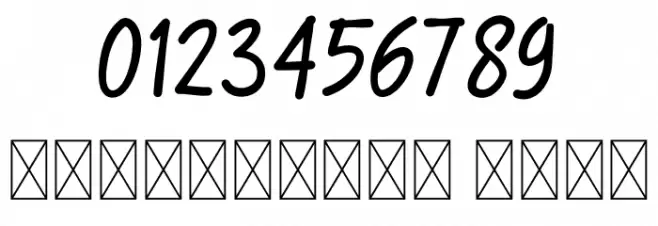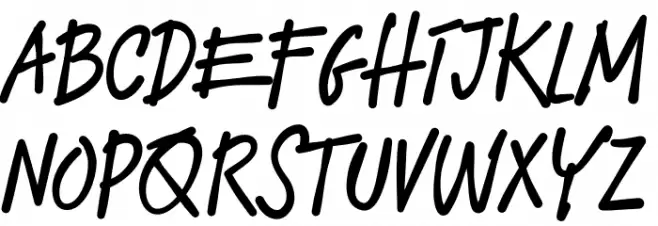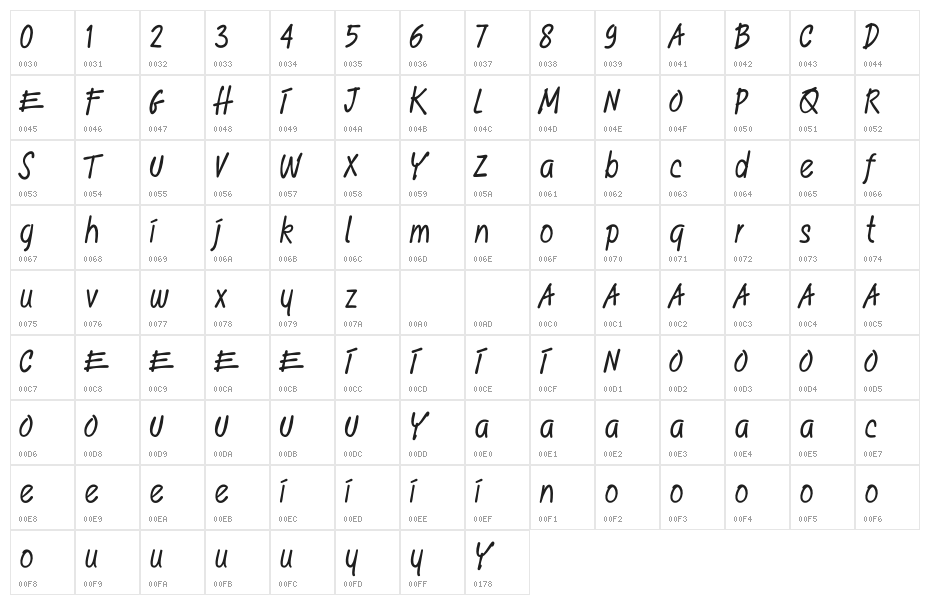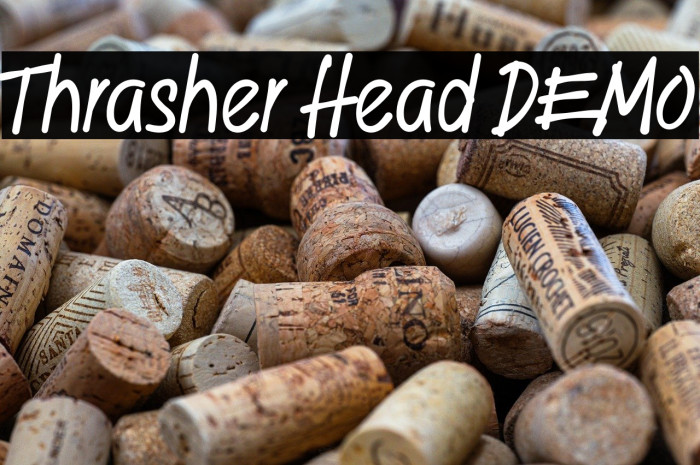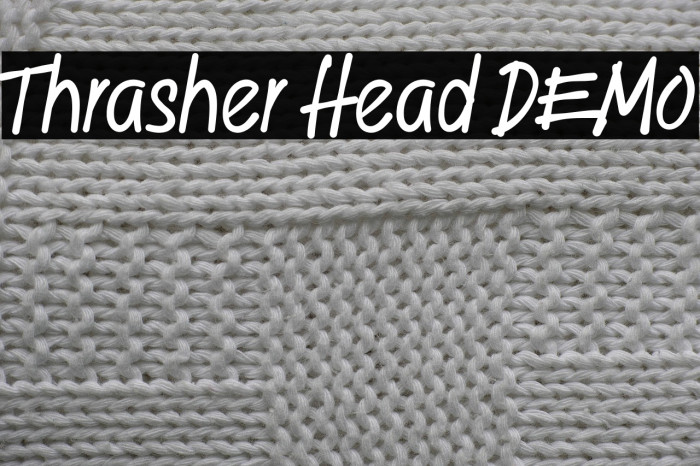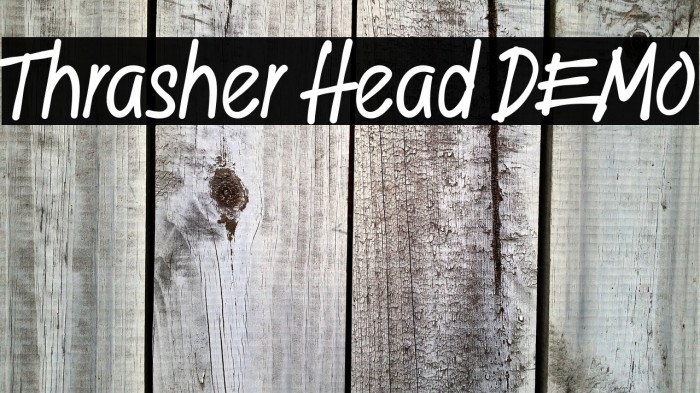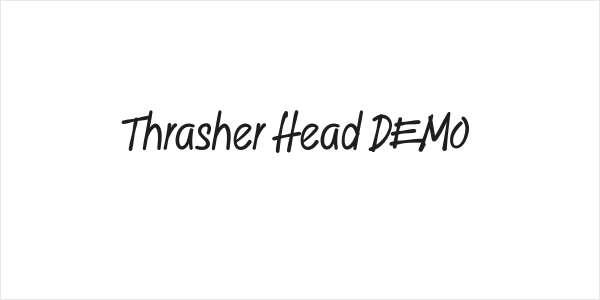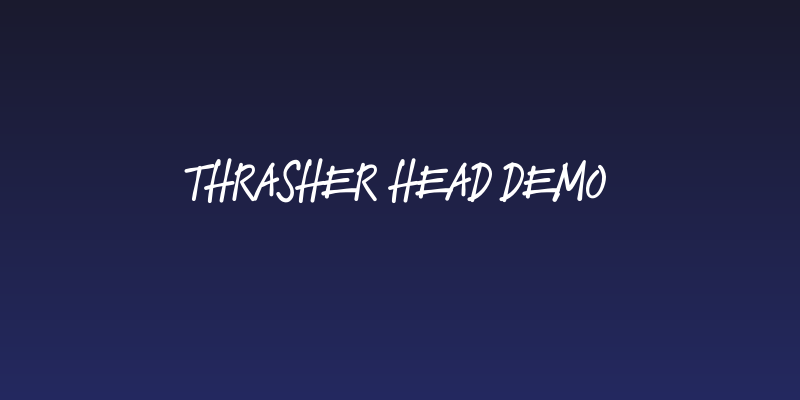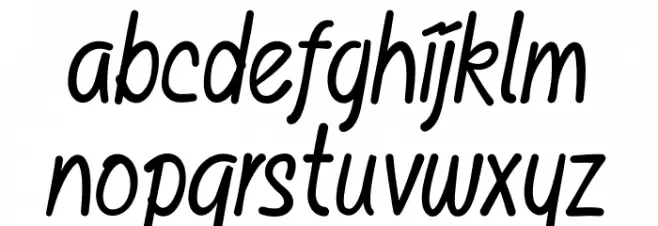
Thrasher Head DEMO Font
Thrasher Head DEMO Description
A bold, handwritten script font with a casual and energetic style, featuring slightly slanted characters and a playful appearance.
| Overall Style | Casual, Energetic, Playful |
| Use Case | Logos, Posters, Informal Invitations |
| Proposed Projects | Posters, logos, informal invitations, and creative projects. |